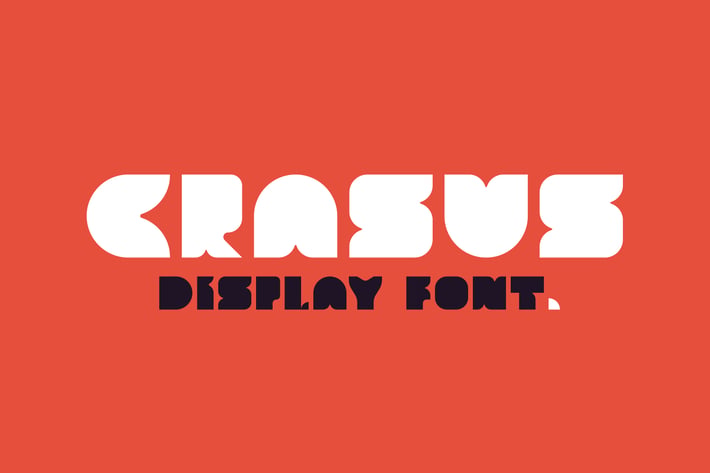
Crasus - Modern & Bold Display Font
Meet Crasus - not fat, but perfectly large and bold display font for headlines and titles.
It works perfectly to create your bold and eye catching titles in flyers, posters, websites, invitations etc.
Also, why not use it for cool and modern logos? Your imagination is the limit for all the creative and modern designs in which you can use this font!